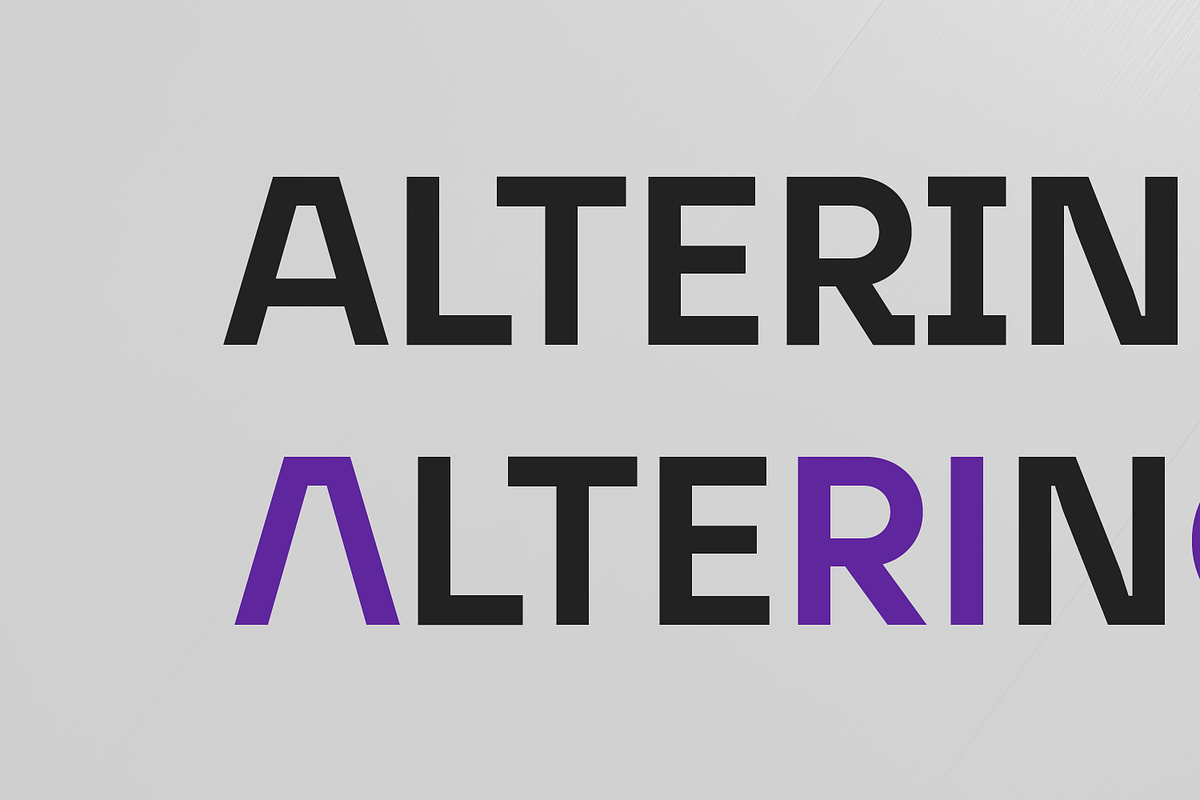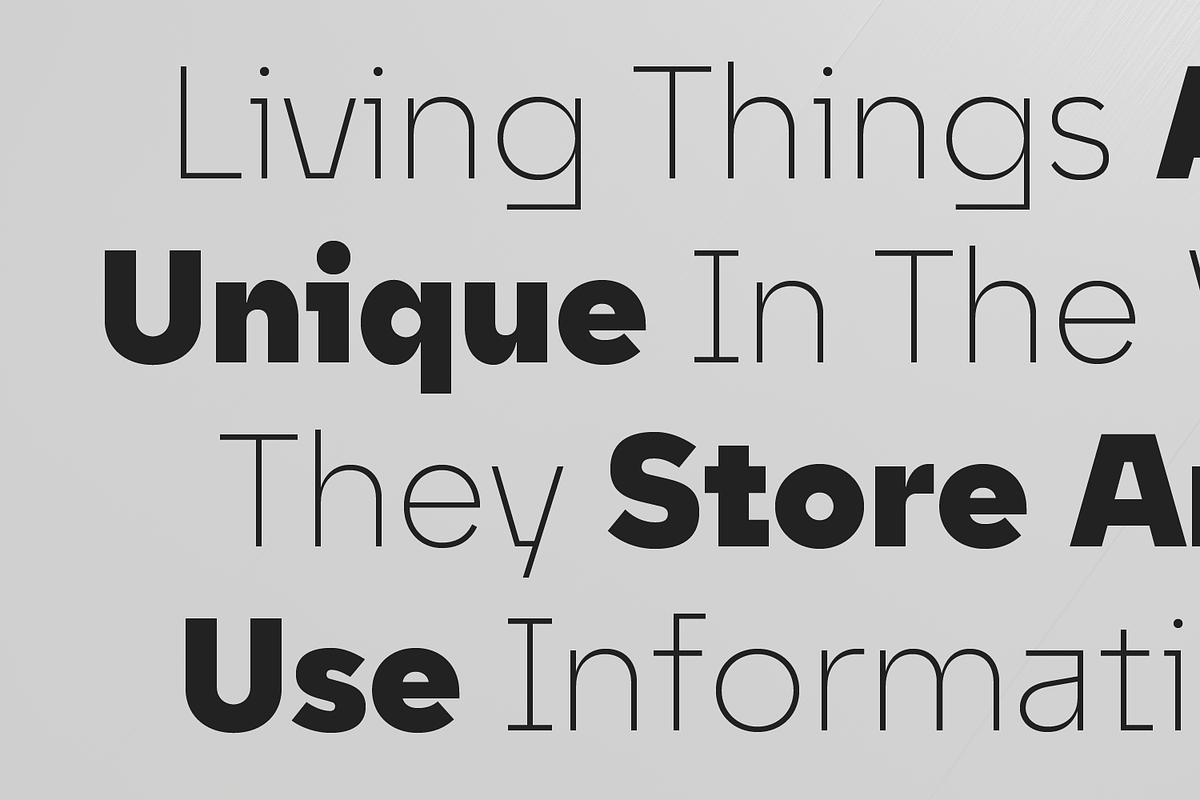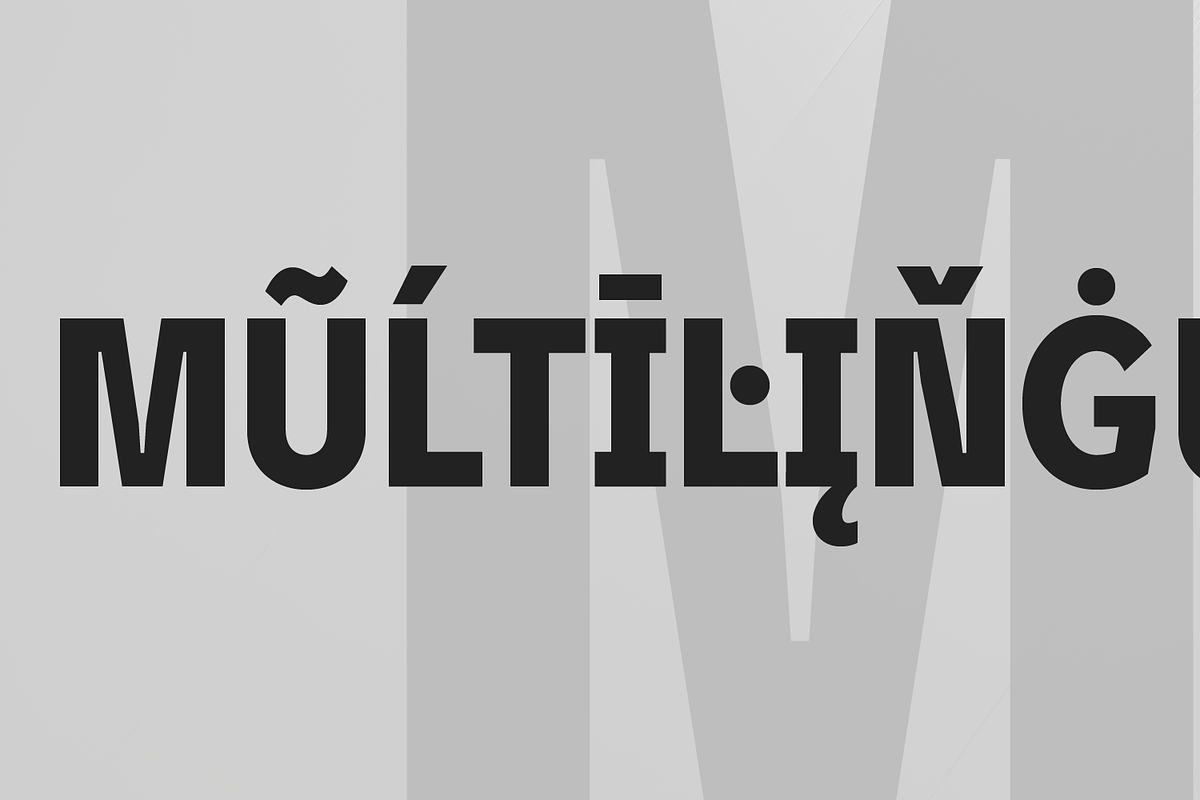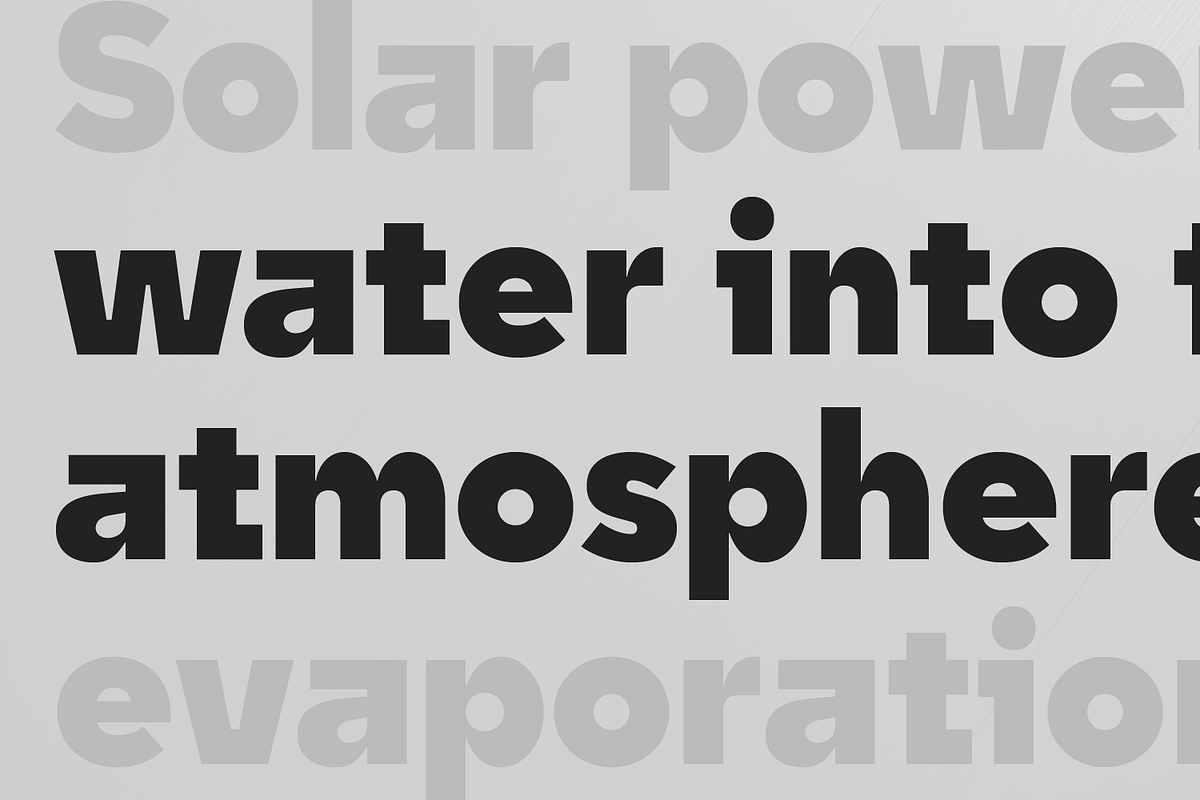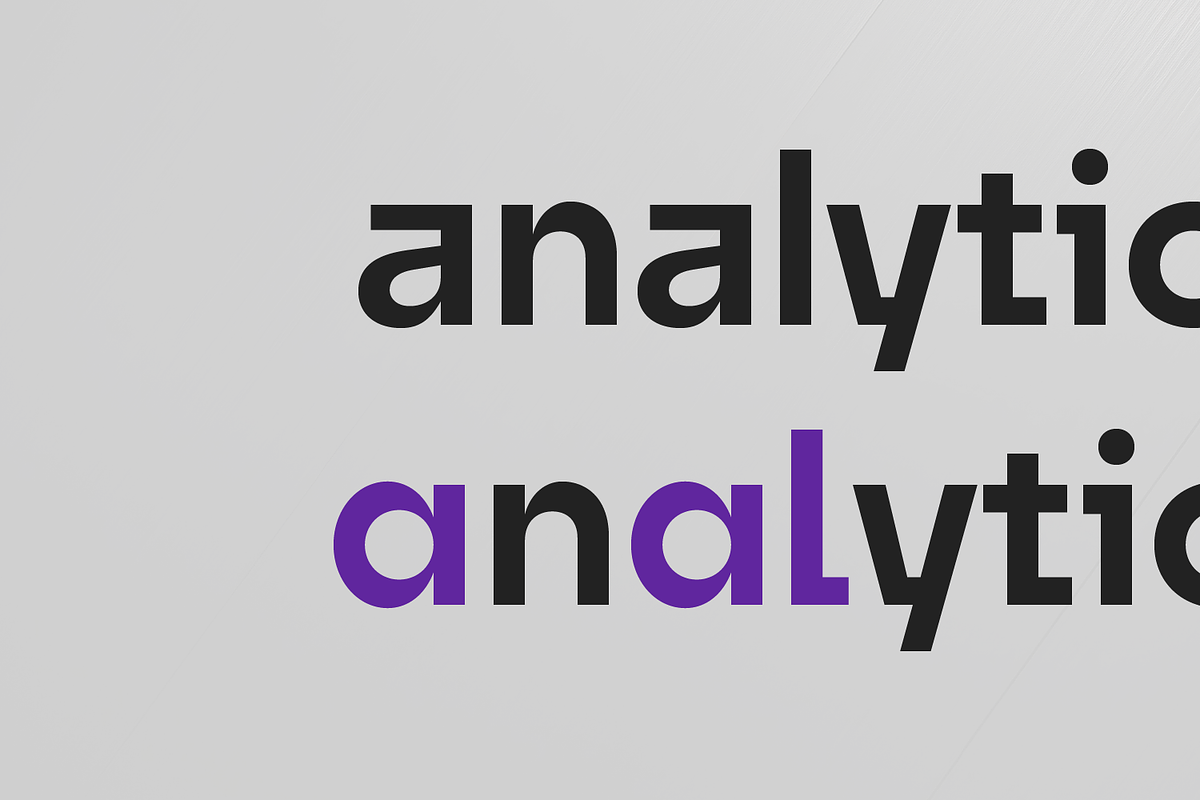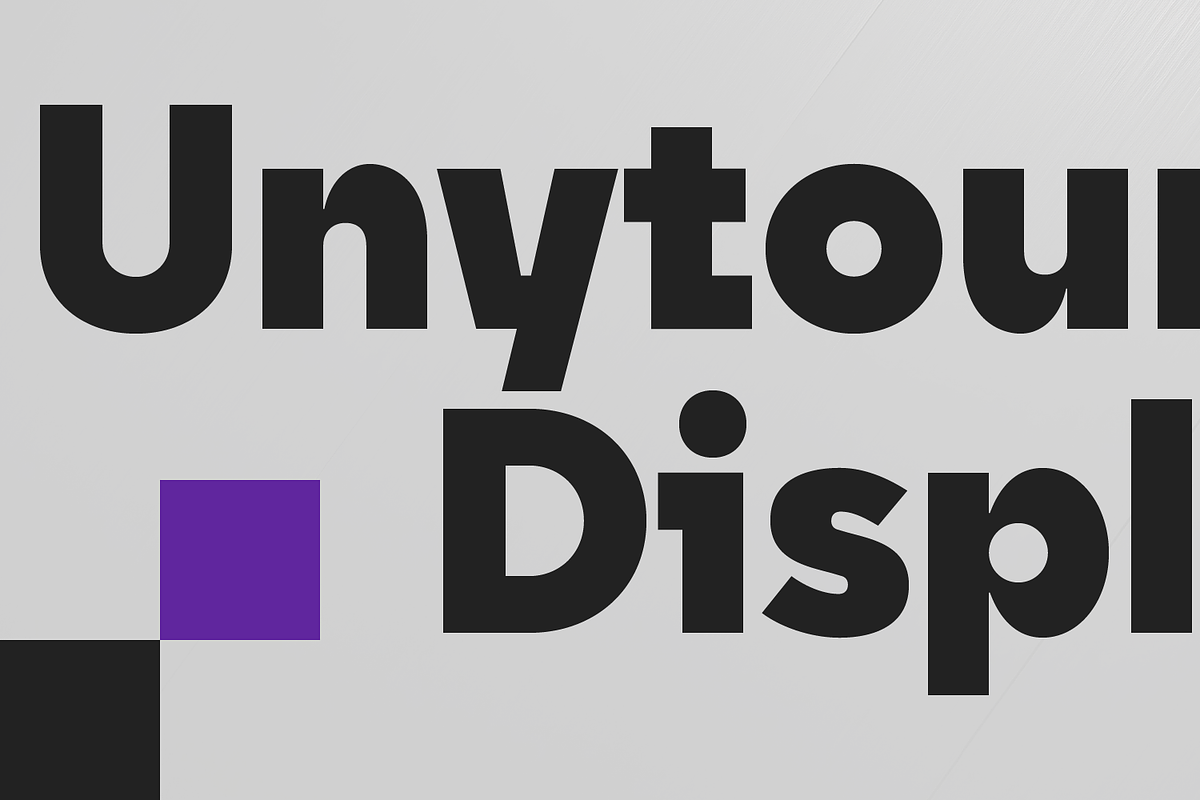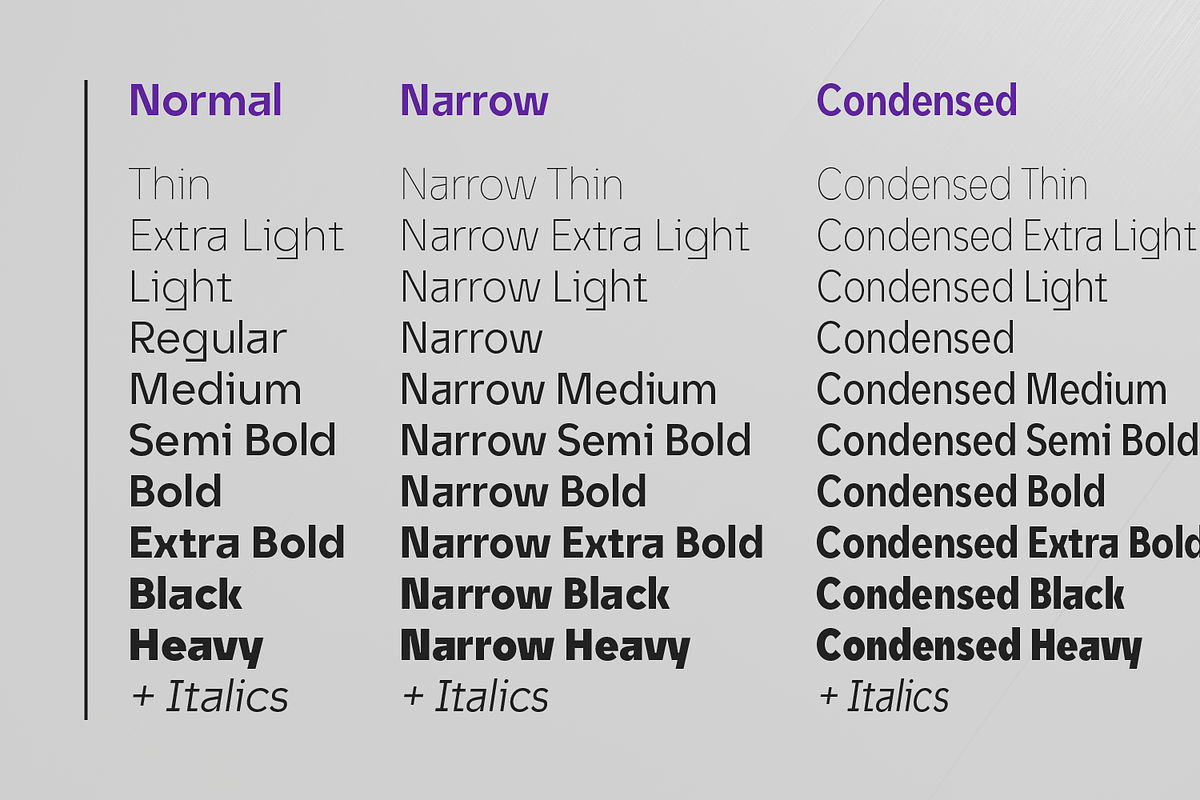
Unytour Display
Unytour Display is a modern sans-serif font family of 60 fonts. It includes 10 weights plus italics from Thin to Heavy and 3 widths. Each weight includes alternatives ( A, G, I, R, a, l ) and OpenType features. Unytour Display features excellent legibility for print, as it does for reproduction on TV screens and more.